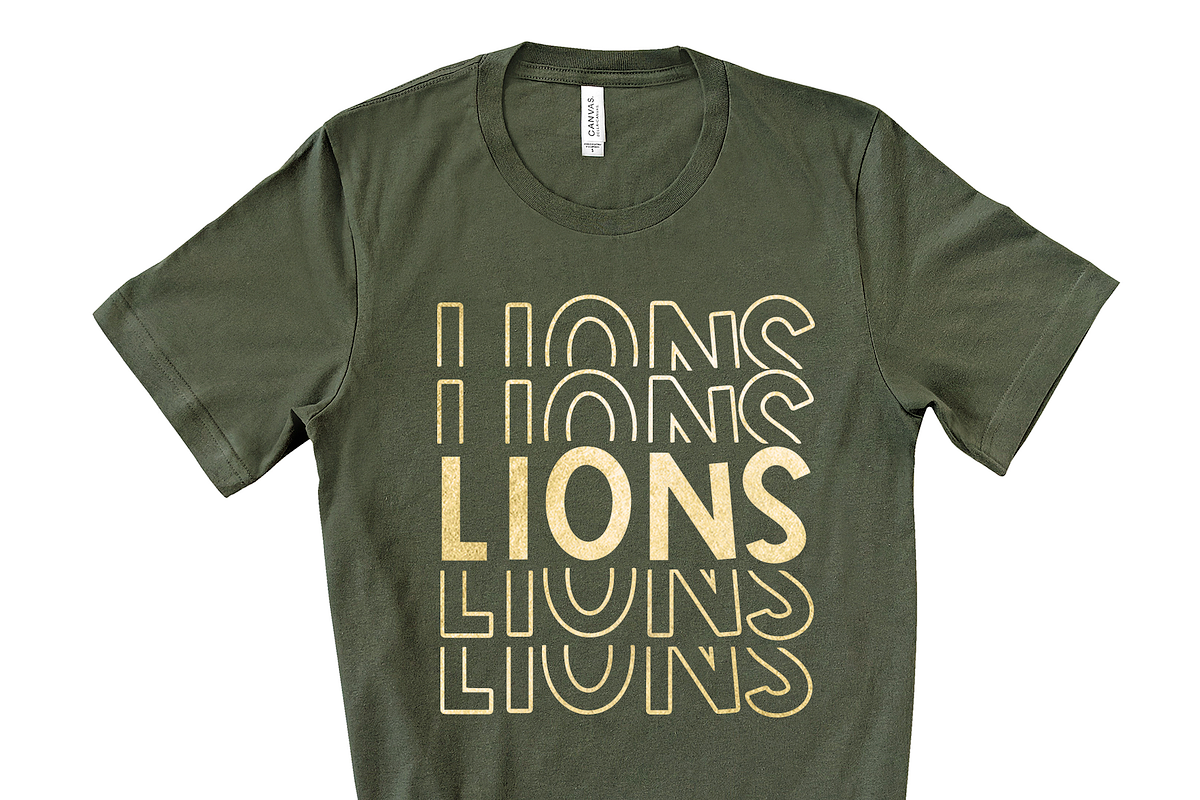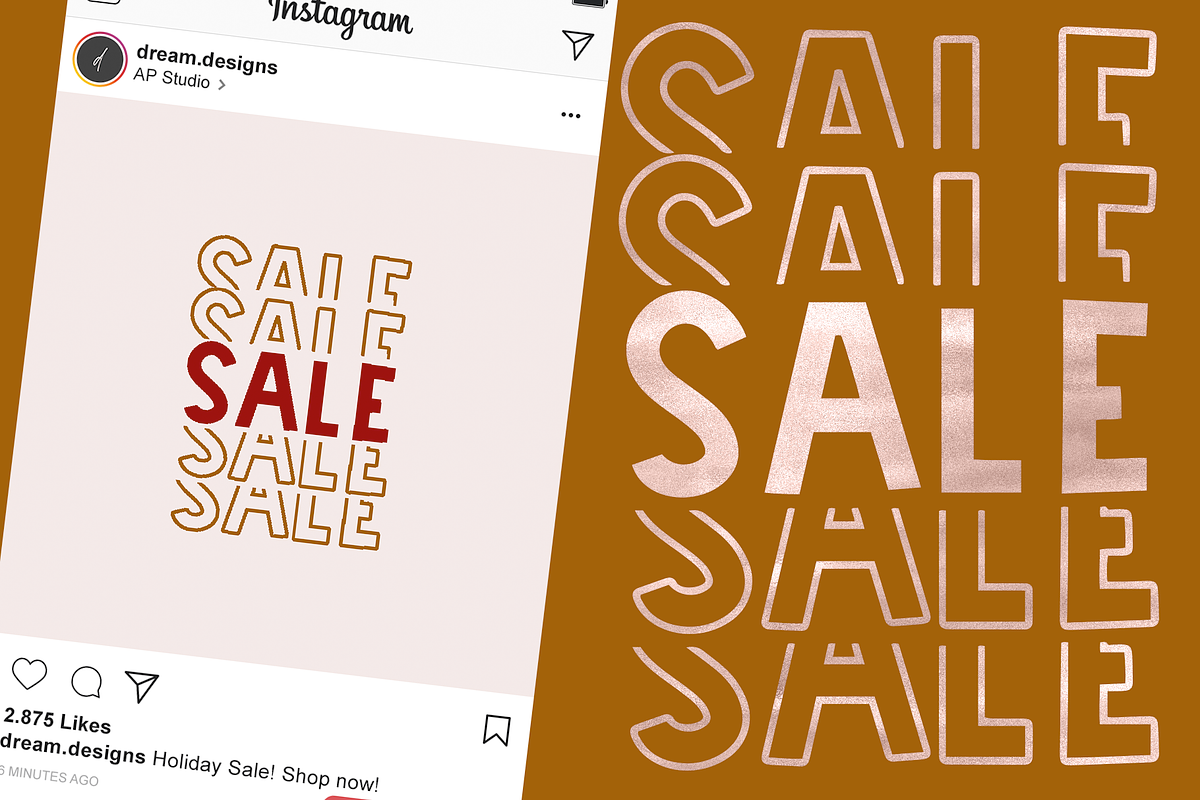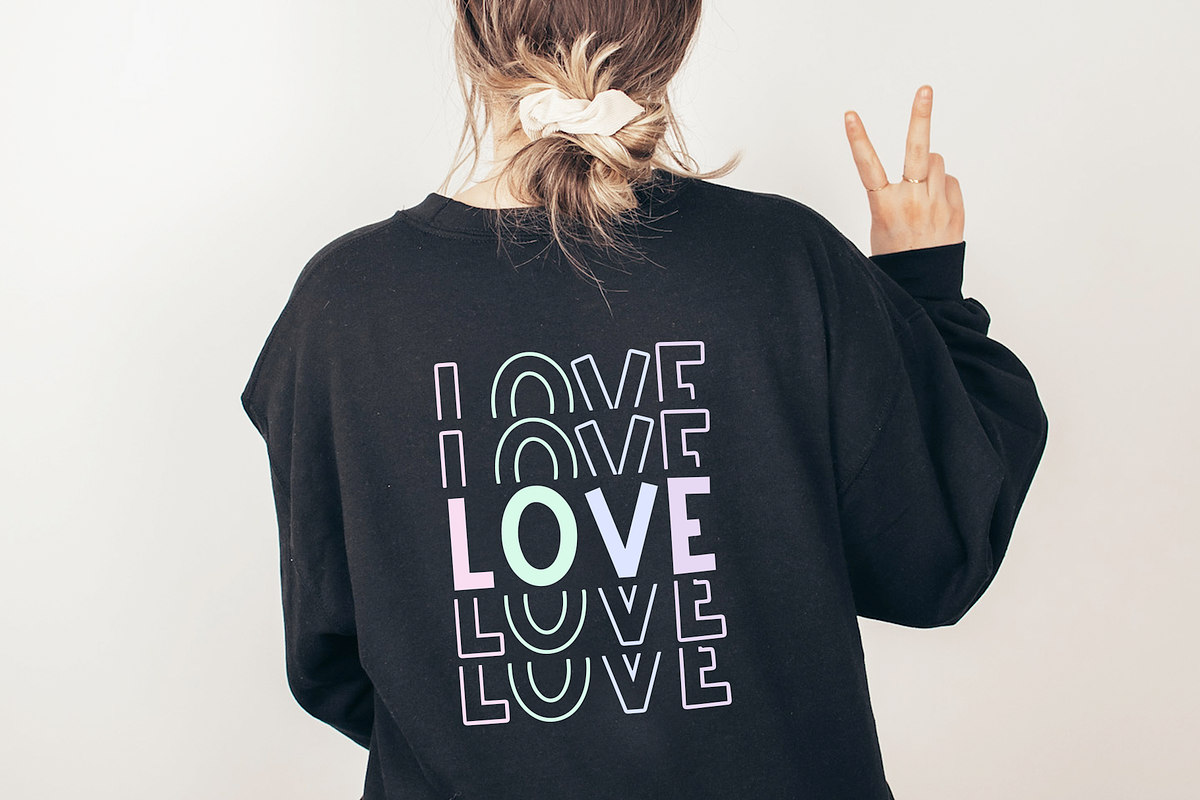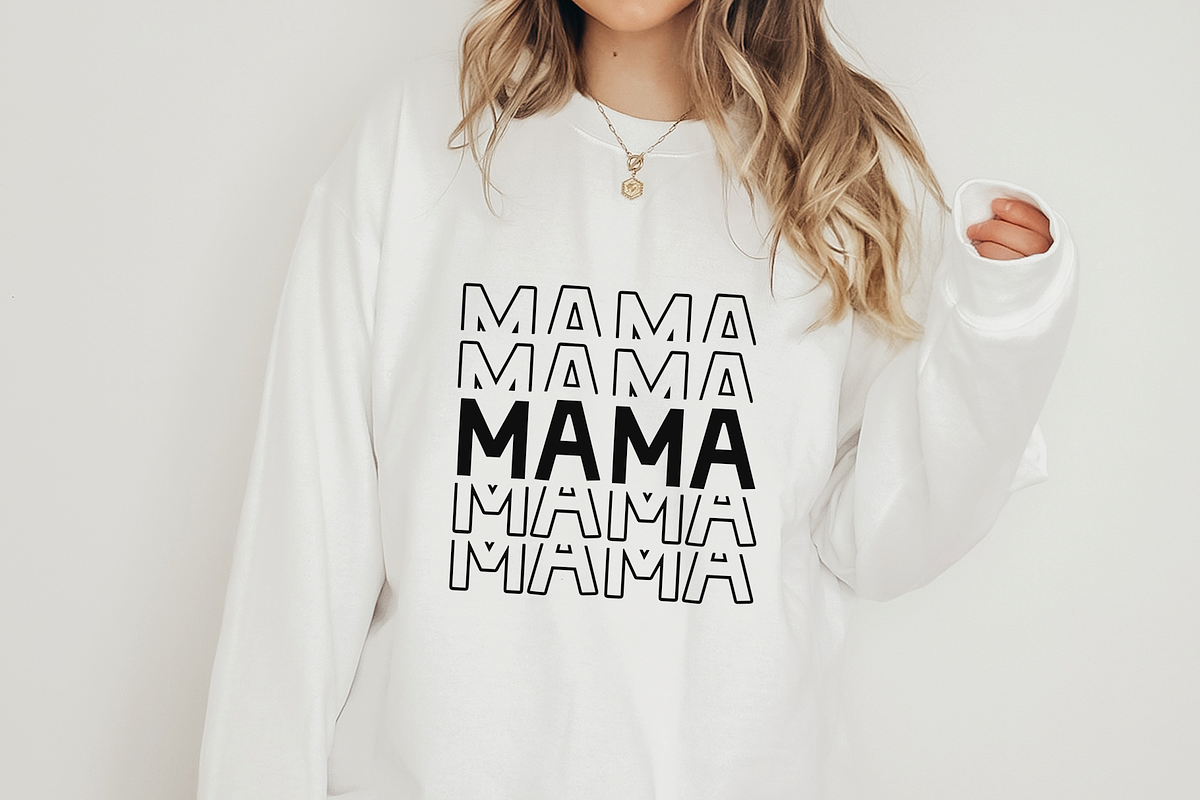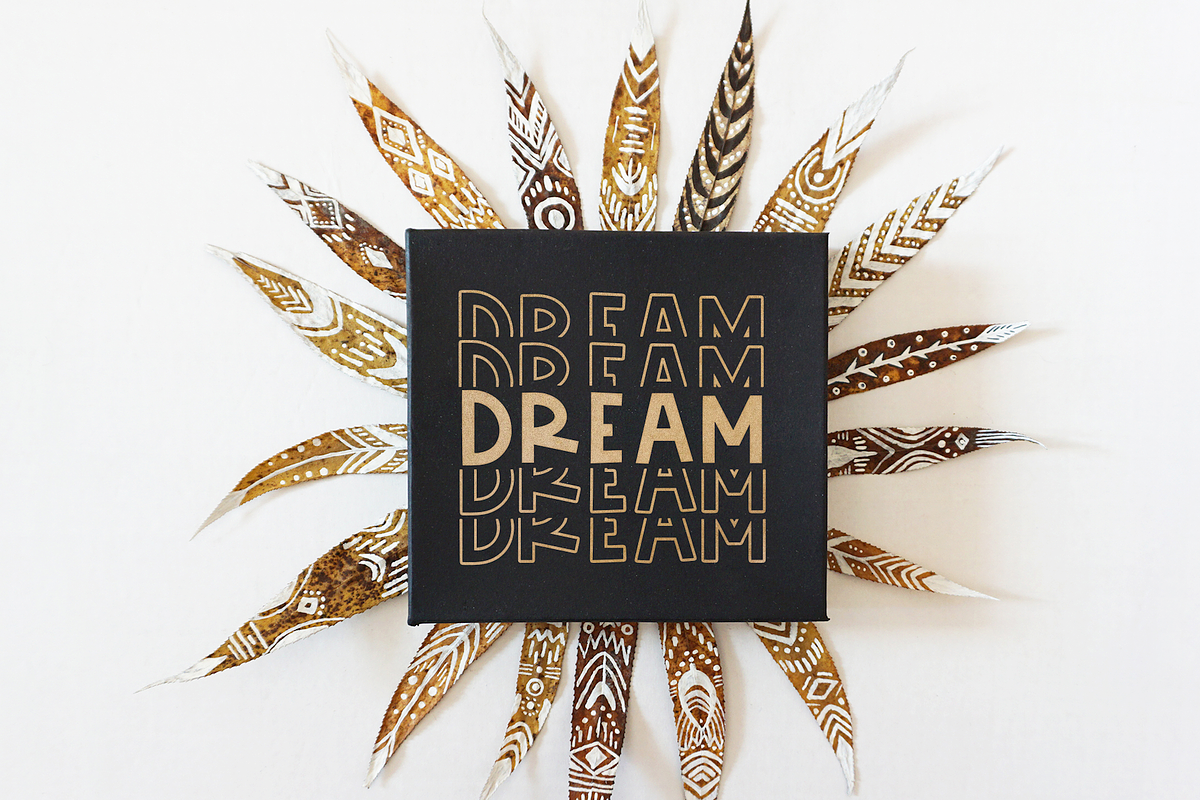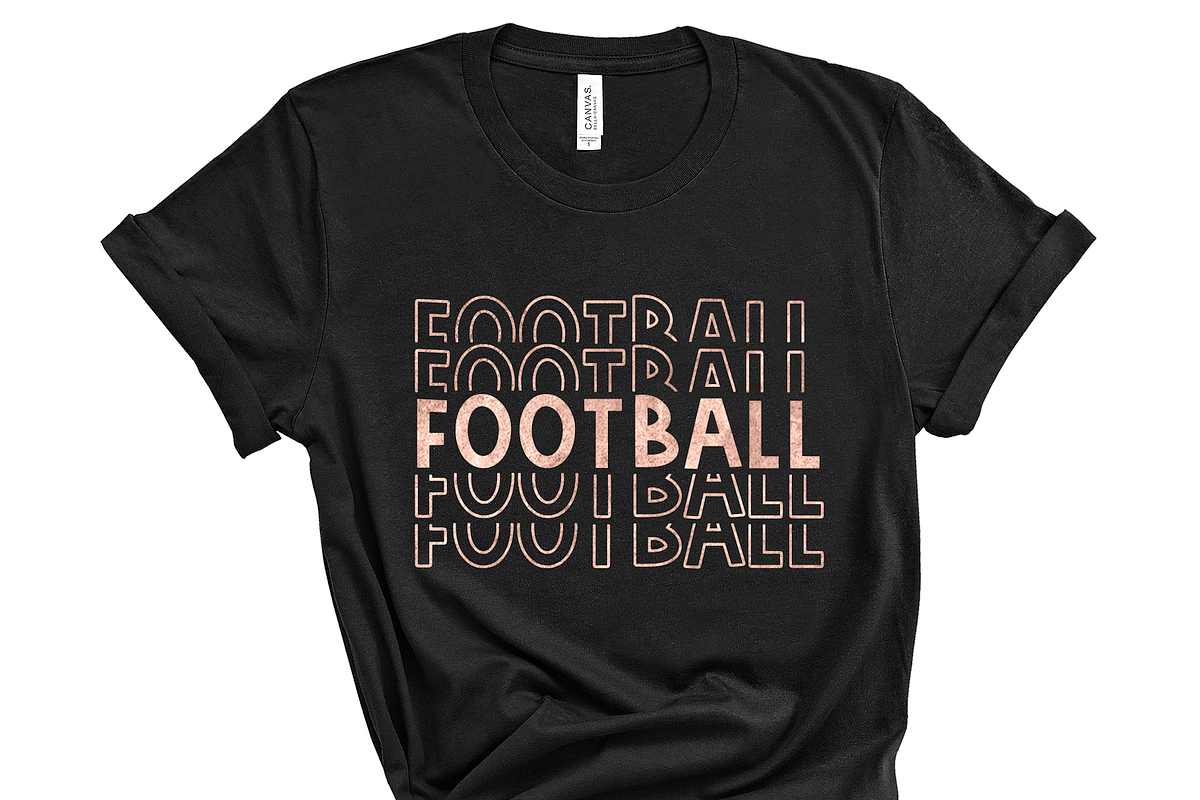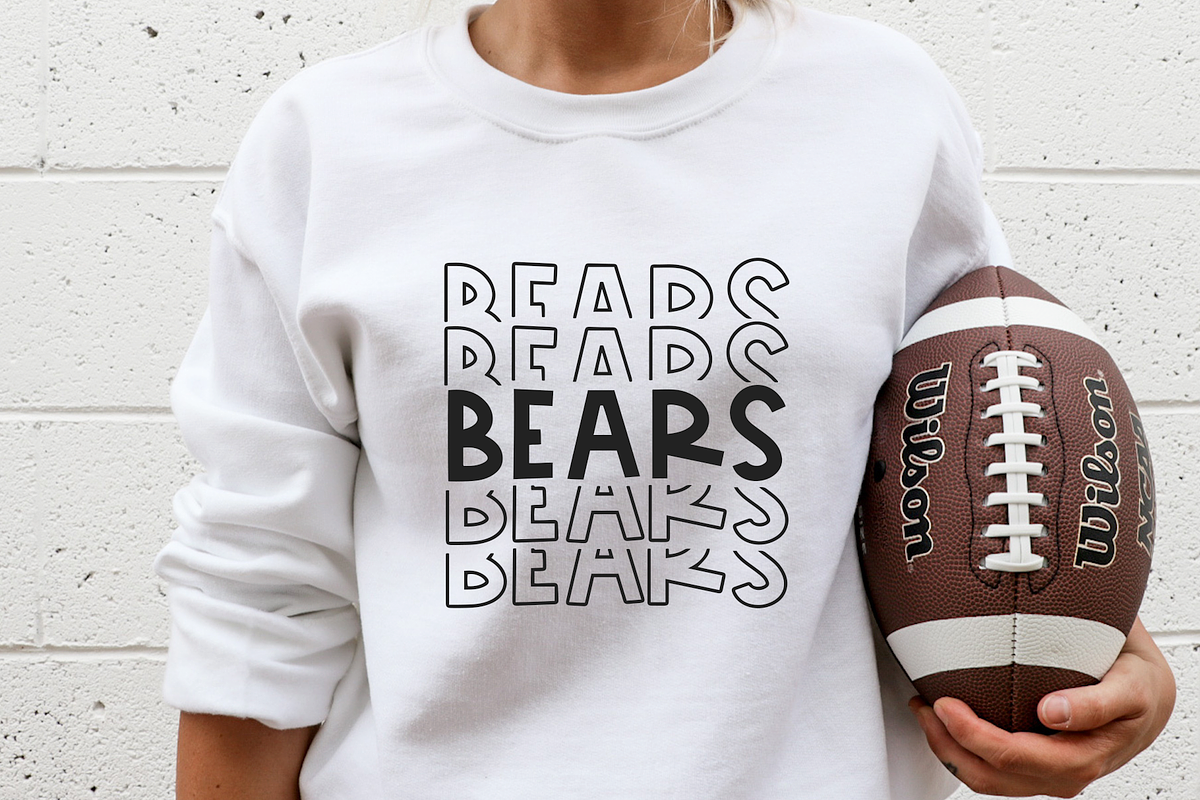
Rainbow | Stacked Font
Rainbow is a fun stacked font perfect for all of your designs!
The font will save you a TON of time making your own stacked/mirrored designs!
This font is perfect for shirts, mugs, posters, social media, signs and more!